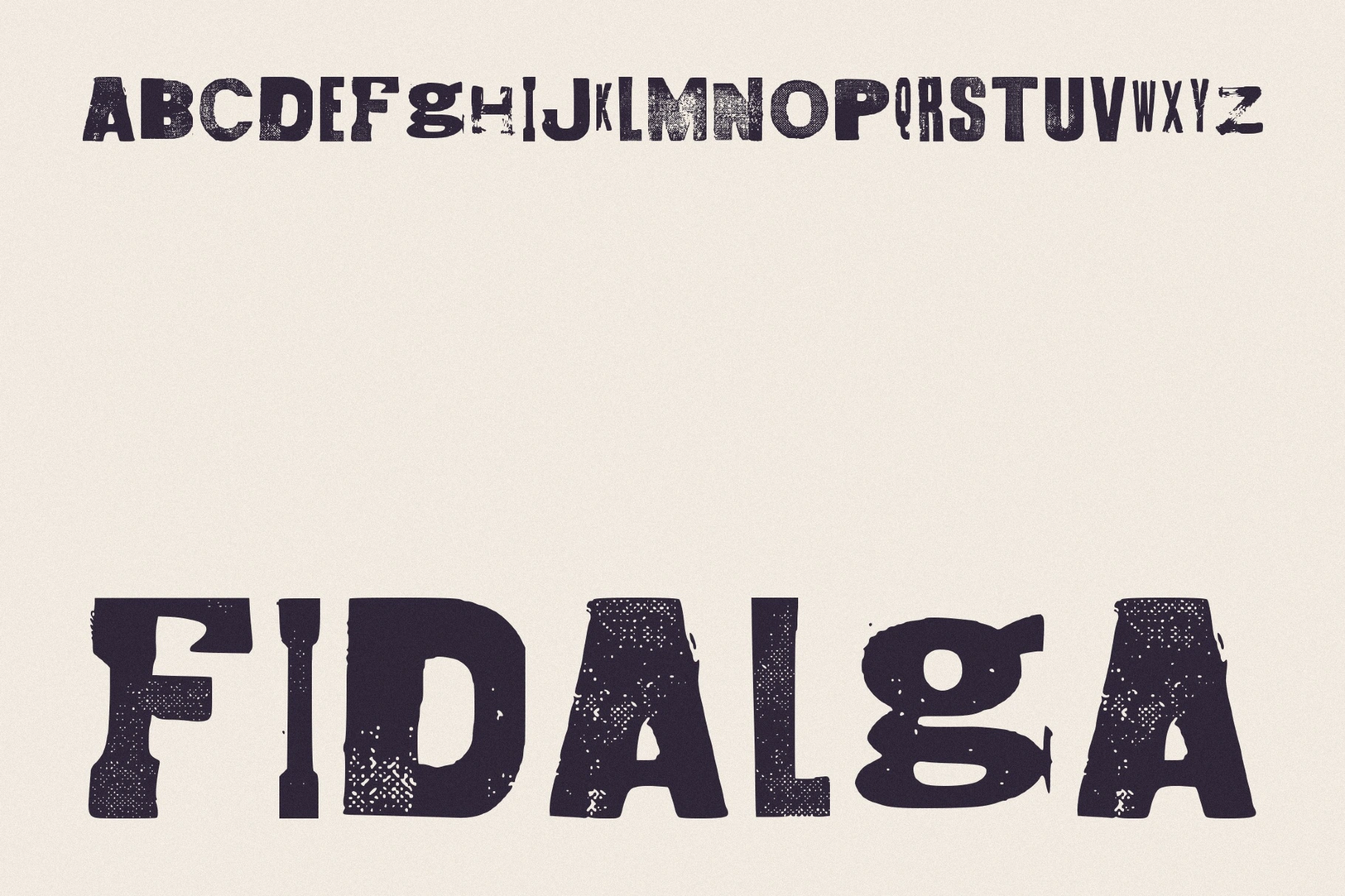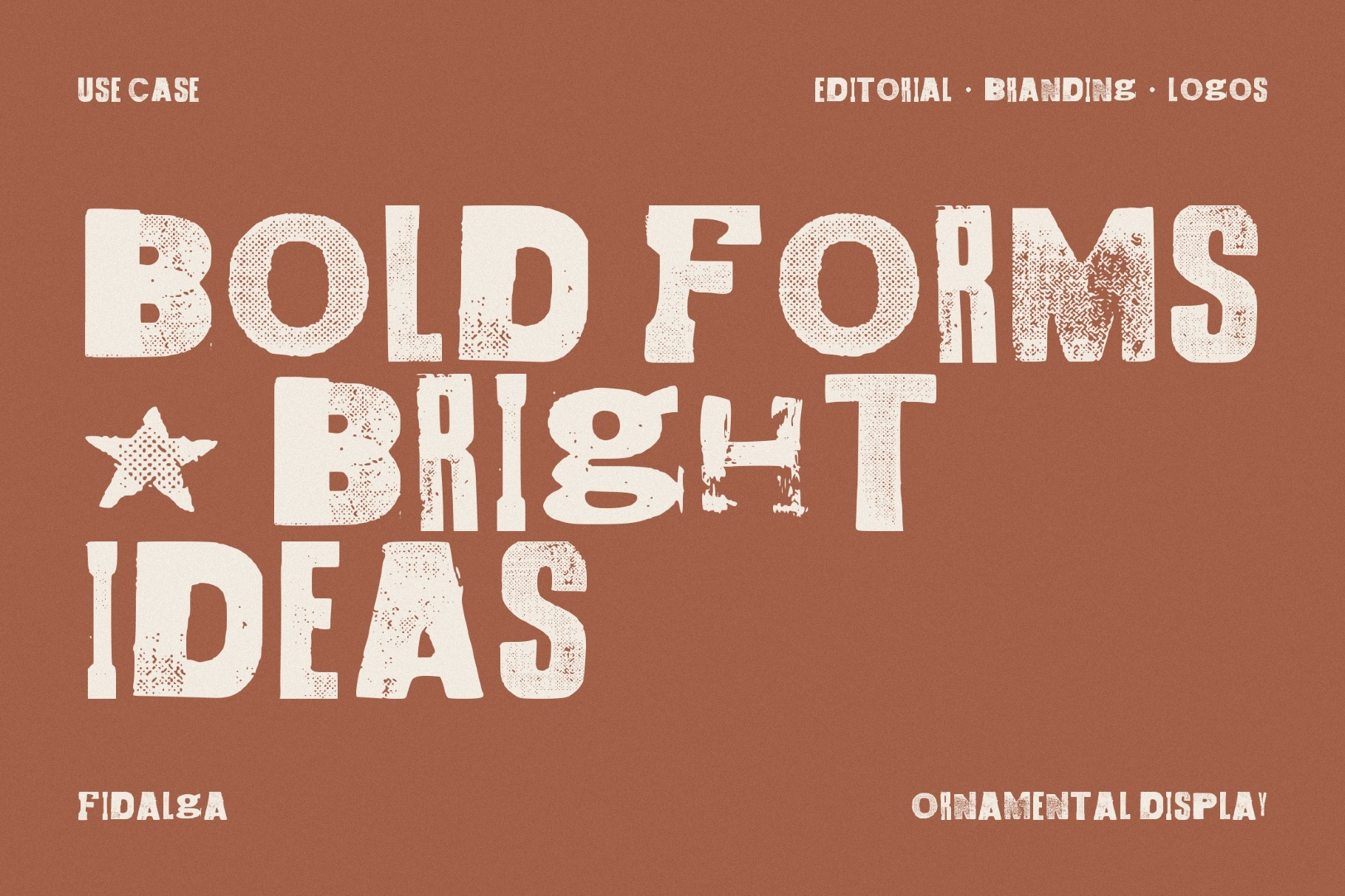
Fidalga Retro Grunge Font
Fidalga has the warmth of old street graphics: pasted to walls, printed on rough paper, faded by the sun, and still holding their shape. Its bold stencil construction gives the letters a strong frame, and the distressed texture adds a worn screen-printed look.
You can play as you want with a rugged vintage character and choose the font for craft beer labels, seafood restaurant branding, travel posters, apparel prints, music flyers, packaging, and social media artwork.
• uppercase letters A–Z;
• dingbats;